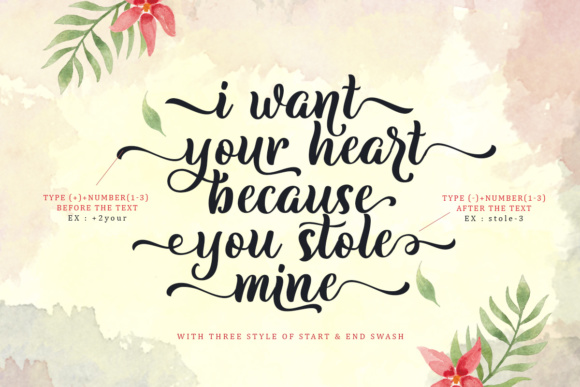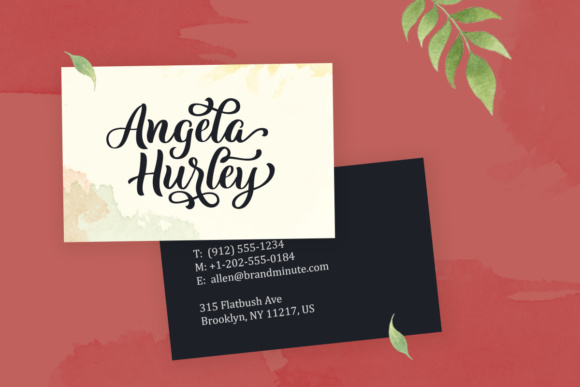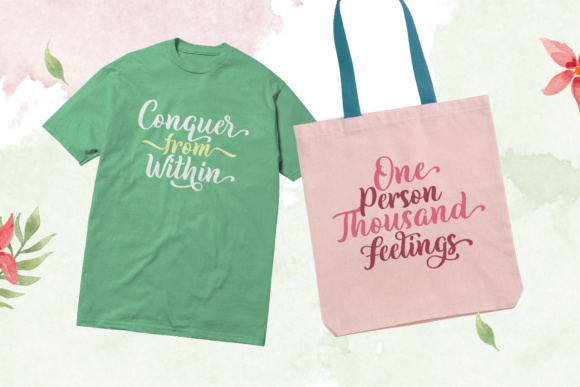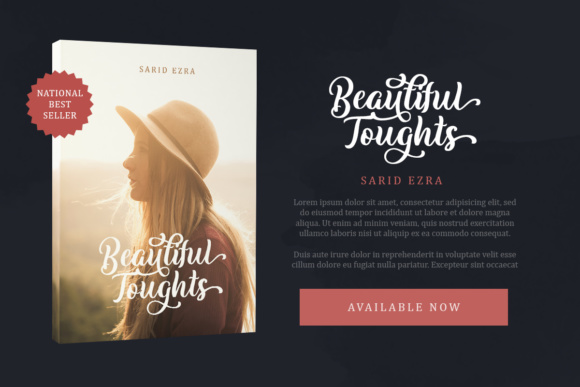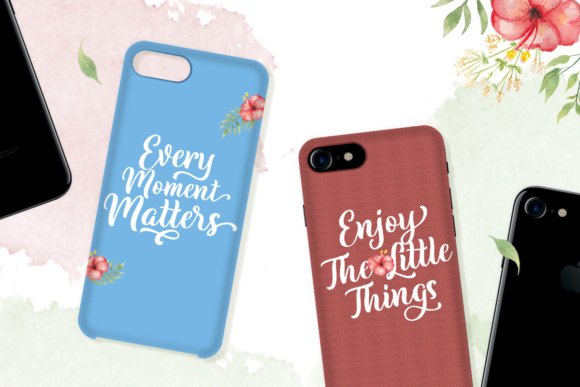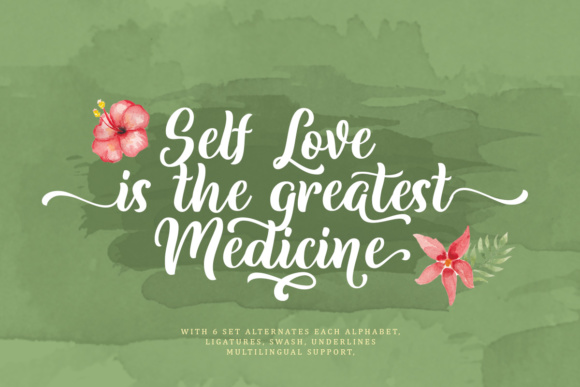
Bulgaria Script Font: A Romantic Modern Script with a Twist of Fun!
Are you looking for a unique and eye-catching font to elevate your design projects? Look no further than the Bulgaria Script Font! This romantic modern script font is perfect for anyone who needs a typeface that exudes elegance and playfulness. With its natural handwriting style, Bulgaria Script Font is ideal for creating stunning headlines, logotypes, posters, and more.
What Makes Bulgaria Script Font Special?
Bulgaria Script Font is a one-of-a-kind typeface that combines the charm of traditional script fonts with a modern twist of fun. Its unique characteristics make it stand out from other script fonts, making it perfect for designers and crafters who want to add a touch of personality to their work.
Here are some features that make Bulgaria Script Font special:
- Natural Handwriting Style: Bulgaria Script Font has a natural, handwritten look that gives it a personal and authentic feel.
- Romantic and Modern: This font combines romantic and modern elements, making it perfect for a wide range of design projects.
- Twist of Fun: Bulgaria Script Font has a playful twist that sets it apart from other script fonts.
- Highly Versatile: This font is suitable for a variety of design projects, including headlines, logotypes, posters, and more.
Uses for Bulgaria Script Font
Bulgaria Script Font is a highly versatile typeface that can be used for a wide range of design projects. Here are some ideas to get you started:
- Headlines and Titles: Use Bulgaria Script Font to create eye-catching headlines and titles for your blog posts, articles, and social media posts.
- Logotypes and Branding: This font is perfect for creating unique and memorable logotypes and branding materials.
- Posters and Flyers: Bulgaria Script Font is ideal for creating stunning posters and flyers for events, promotions, and more.
- Wedding and Party Invitations: Add a touch of elegance and whimsy to your wedding and party invitations with Bulgaria Script Font.
Tips for Using Bulgaria Script Font
Here are some tips for using Bulgaria Script Font effectively in your design projects:
- Use it as a Display Font: Bulgaria Script Font is perfect for use as a display font for headlines and titles.
- Pair it with a Sans-Serif Font: Pair Bulgaria Script Font with a sans-serif font for a clean and modern look.
- Experiment with Colors and Textures: Have fun experimenting with different colors and textures to add depth and interest to your designs.
- Use it to Add Personality: Use Bulgaria Script Font to add a touch of personality and whimsy to your designs.
In conclusion, Bulgaria Script Font is a unique and versatile typeface that is perfect for designers and crafters who want to add a touch of elegance and playfulness to their work. With its natural handwriting style, romantic and modern elements, and twist of fun, this font is sure to elevate your design projects to the next level. So why wait? Download Bulgaria Script Font today and start creating stunning designs that showcase your personality and style!